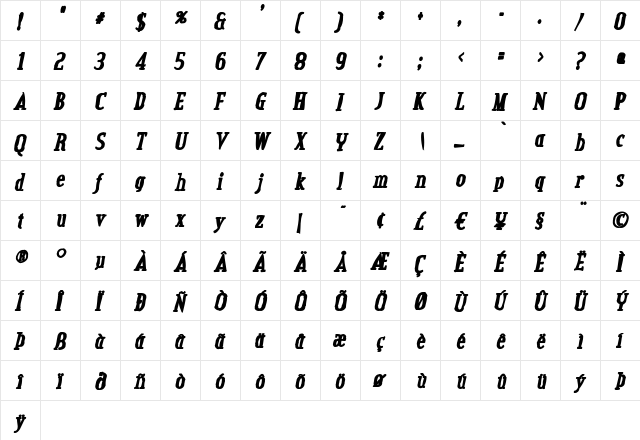
Credit Valley Ink Italic
Design Context for Credit Valley Ink Typeface
Credit Valley Ink is a composed and adaptable typeface that performs quietly and consistently across a wide range of design contexts. Its italic angle brings a sense of urgency and motion to the letterforms.
Pro Tip: Use Credit Valley Ink for emphasis, pull quotes, and subheadings where its slanted energy can add rhythm to the layout.